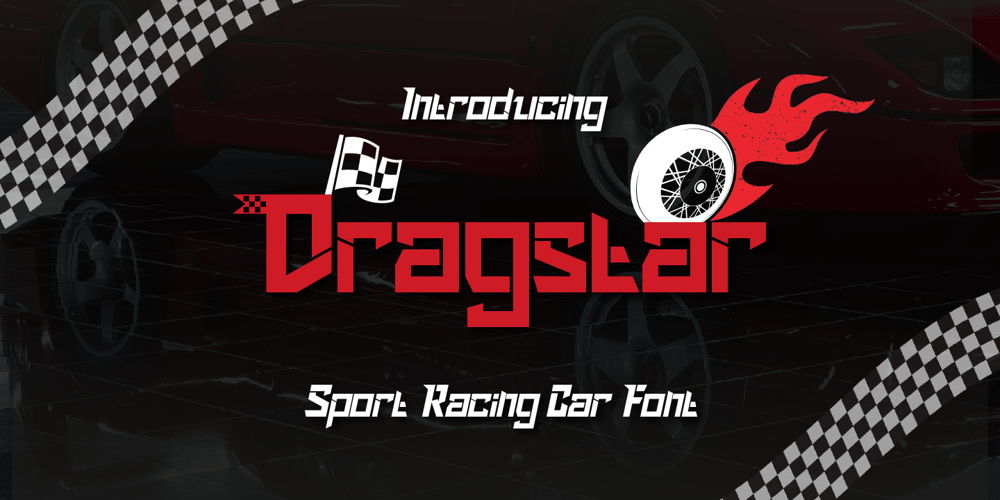
Dragstar Font Family was designed by Rozikan and published by Twinletter. Dragstar contains 4 styles and family package options. Ignite your designs with the power of Dragstar, a high-performance sport font tailored for racing enthusiasts. Featuring bold and aggressive letterforms, Dragstar brings the thrill of the racetrack to your projects. Perfect for team branding, merchandise, race schedules, and gaming interfaces, this font ensures a strong and energetic visual impact. Designed for professionals seeking a modern and edgy racing aesthetic, Dragstar is your go-to font for high-speed creativity.**What’s Included:**- All glyphs and Feature- We highly recommend using a program that supports OpenType features and Glyphs panels like many Adobe apps and Corel Draw so that you can see and access all Glyph variations.- PUA Encoded Characters, Fully accessible without additional design software.- Fonts include Multilingual: Support for 85 languages. Afrikaans, Albanian, Asu, Basque, Bemba, Bena, Breton, Catalan, Chiga, Cornish, Croatian, Czech, Danish, Dutch, Embu, English, Esperanto, Estonian, Filipino, Finnish, French, Friulian, Galician, Gusii, Hungarian, Indonesian, Irish, Italian, Kabuverdianu, Kalenjin, Kamba, Kikuyu, Kinyarwanda, Latvian, Lithuanian, Lower, Sorbian, Luo, Luxembourgish, Luyia, Machame, Makhuwa-Meetto, Makonde, Malagasy, Maltese, Manx, Meru, Morisyen, North, Ndebele, Norwegian Bokmål, Norwegian Nynorsk, Nyankole, Oromo, Polish, Portuguese, Quechua, Romanian, Romansh, Rombo, Rundi, Rwa, Samburu, Sango, Sangu, Scottish, Gaelic, Sena, Serbian, Shambala, Shona, Slovak, Slovenian, Soga, Somali, Spanish, Swahili, Swedish, Swiss German, Taita, Teso, Turkish, Upper Sorbian, Uzbek (Latin), Volapük, Vunjo, Walser, Zulu.